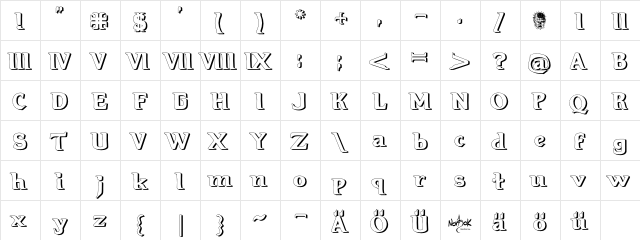
Hellraiser3 Shadow Shadow
| Designer | Thomas W.Otto |
Design Context for Hellraiser3 Shadow Typeface
Hellraiser3 Shadow brings ornamental detail and strong personality to headlines and identities, where visual impact matters more than quiet functionality.
Font Pairing: Pair with a clean neutral sans-serif for body copy to let Hellraiser3 Shadow's character lead without overwhelming the composition.
Pro Tip: Use Hellraiser3 Shadow exclusively at display sizes — it was designed to be seen, not read at length. Let a neutral companion handle body copy.